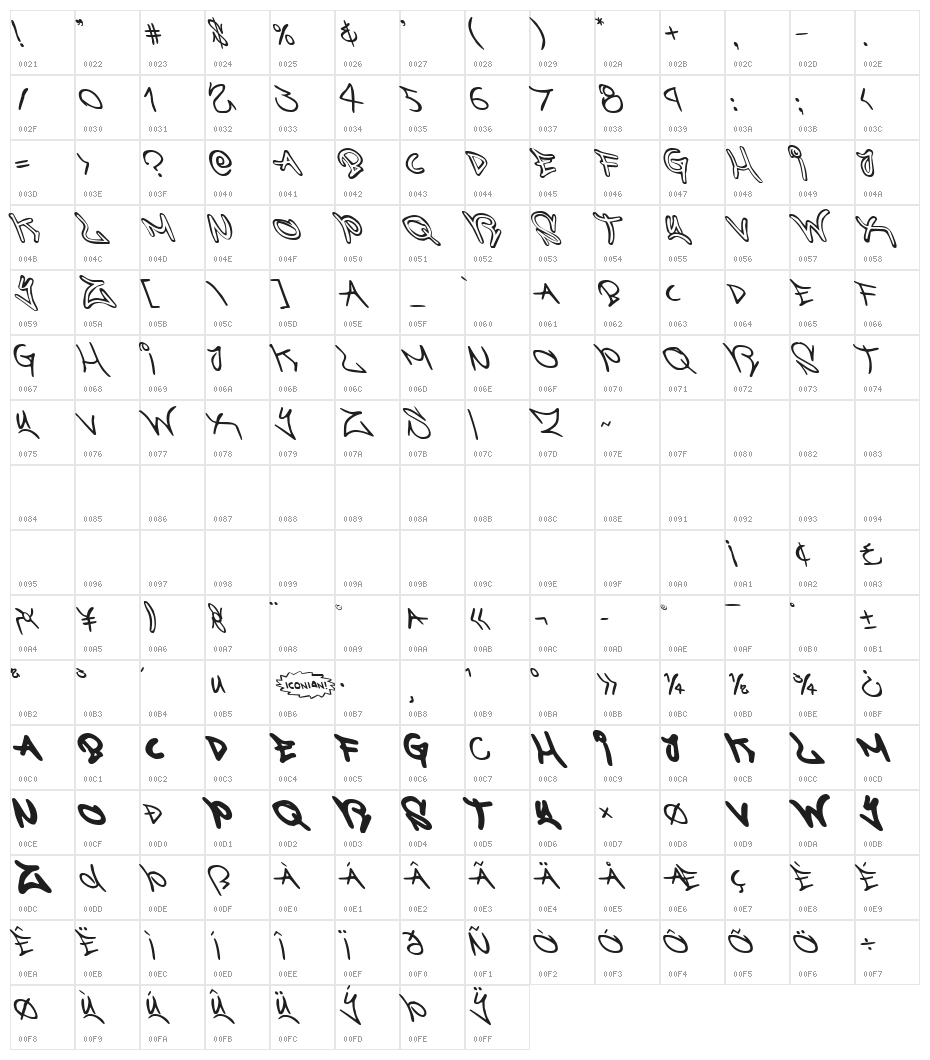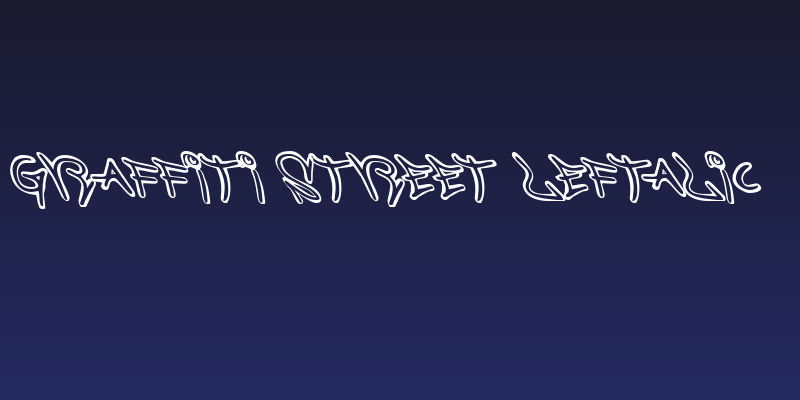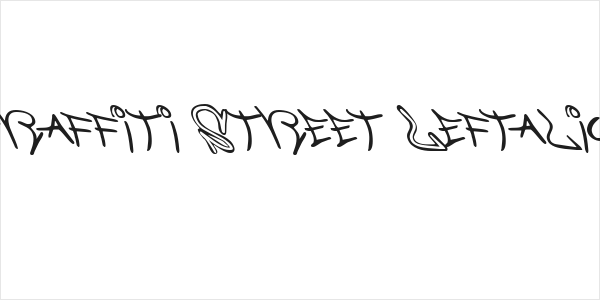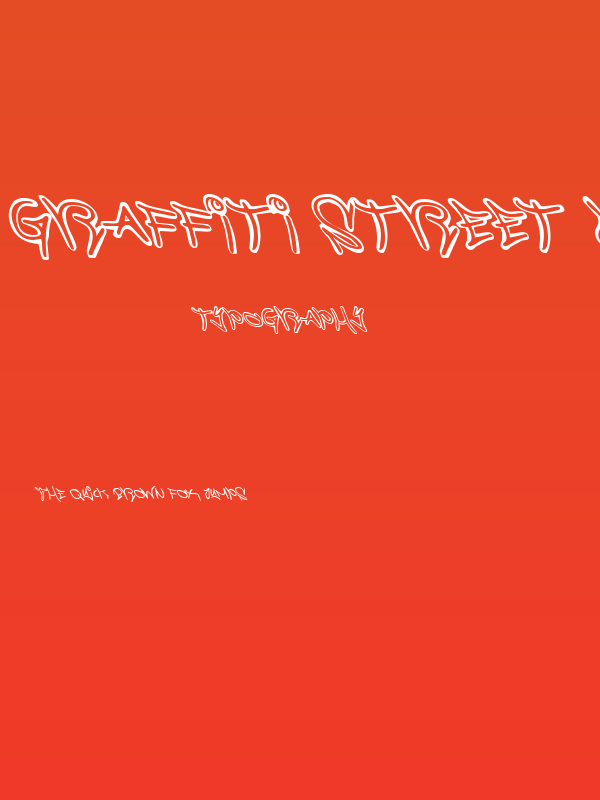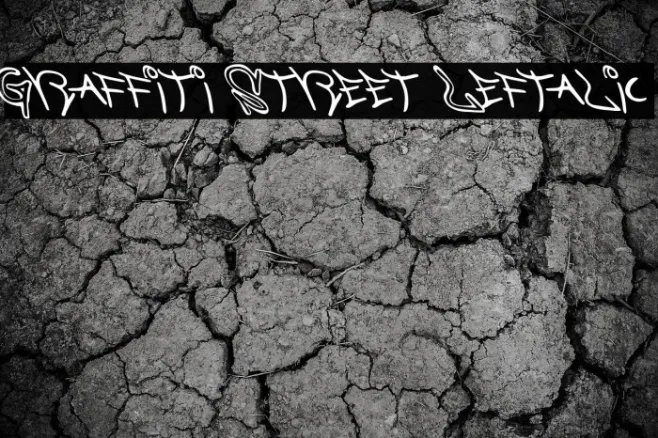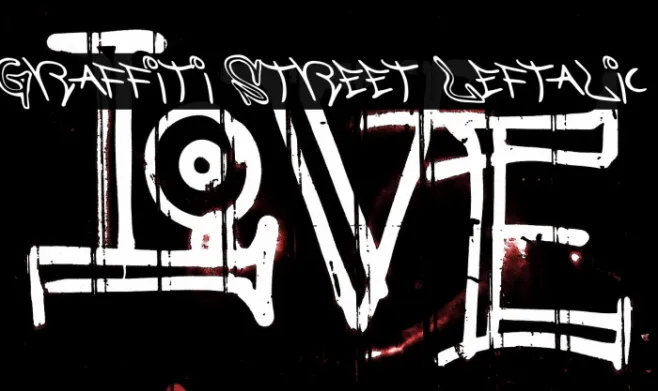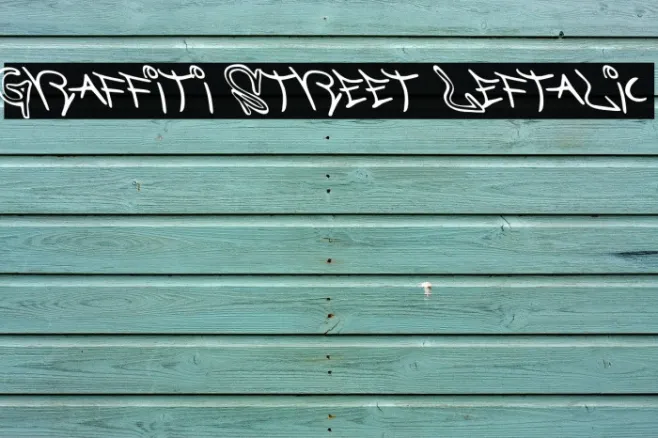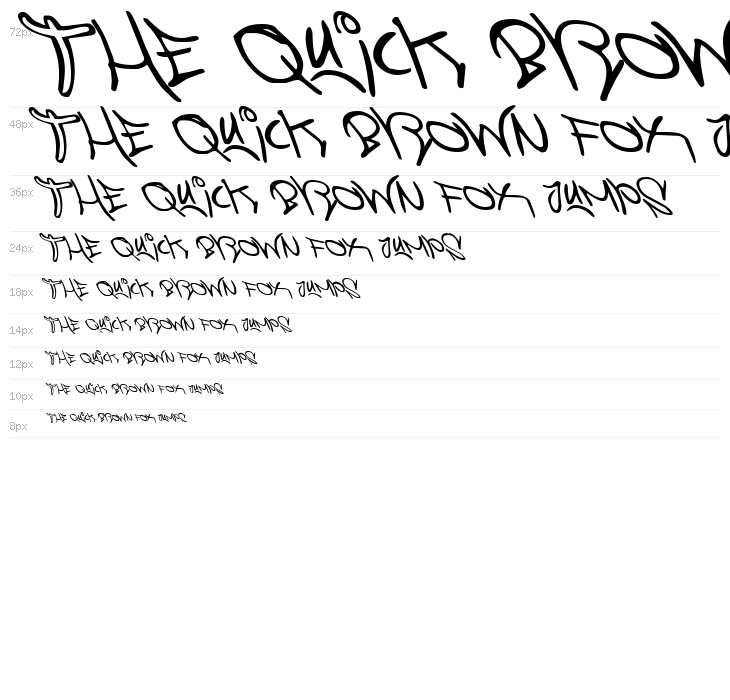
Graffiti Street Leftalic Font
Graffiti Street Leftalic Description
This font embodies a bold and dynamic graffiti style, characterized by its sharp, angular lines and energetic flow. The letters are designed with a sense of movement, giving an impression of speed and spontaneity. The uppercase and lowercase letters maintain a consistent style, with exaggerated curves and pointed edges that mimic the look of street art. Numbers and special characters follow the same aesthetic, ensuring a cohesive appearance across all glyphs. The font's unique style makes it stand out, capturing the essence of urban culture and artistic expression.
| Overall Style | Urban, Energetic, Artistic |
| Use Case | Logos, Posters, Street Art, Album Covers |
| Proposed Projects | Ideal for street art projects, urban-themed designs, music album covers, and edgy branding. |